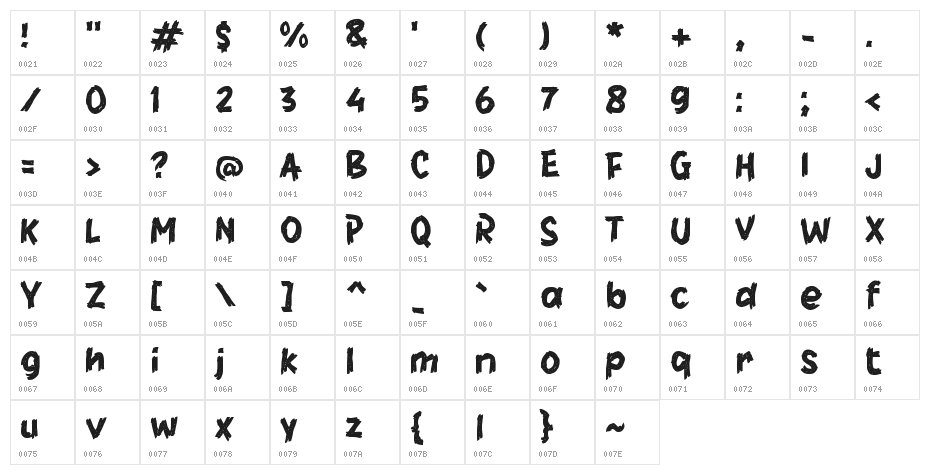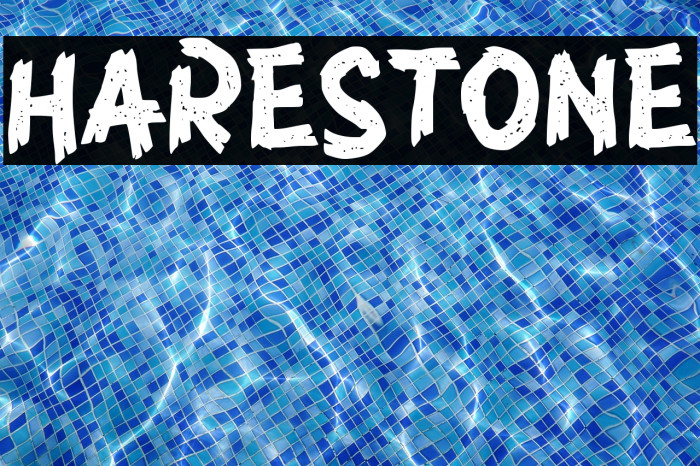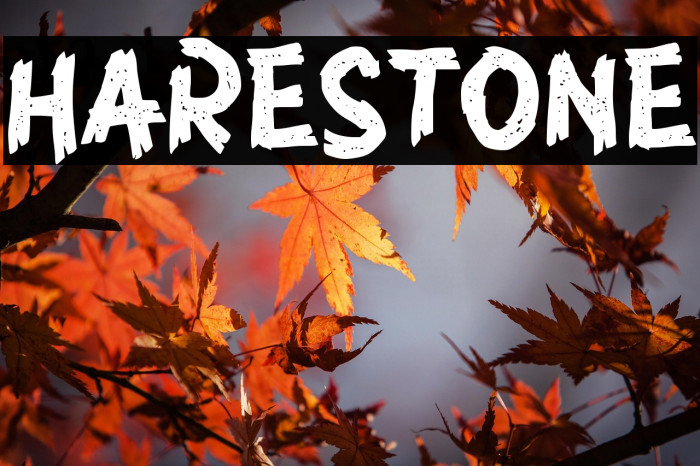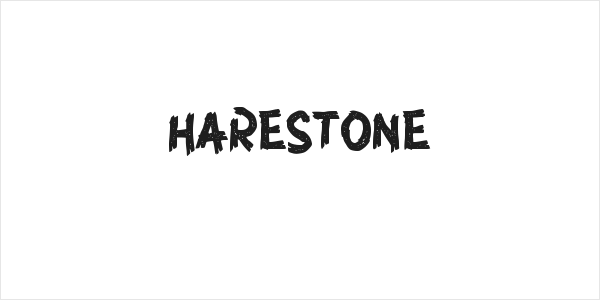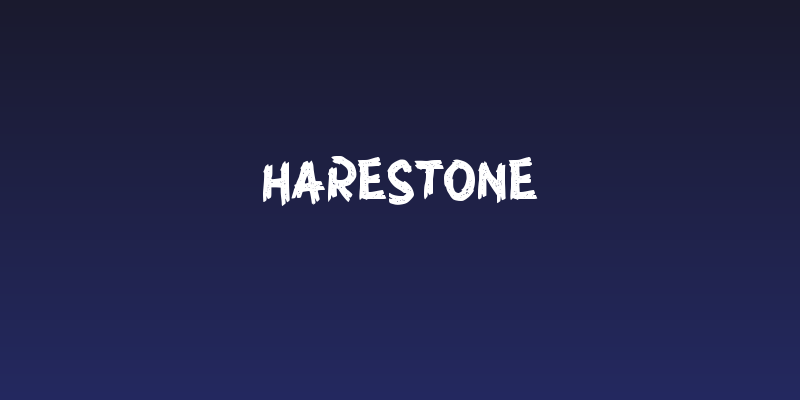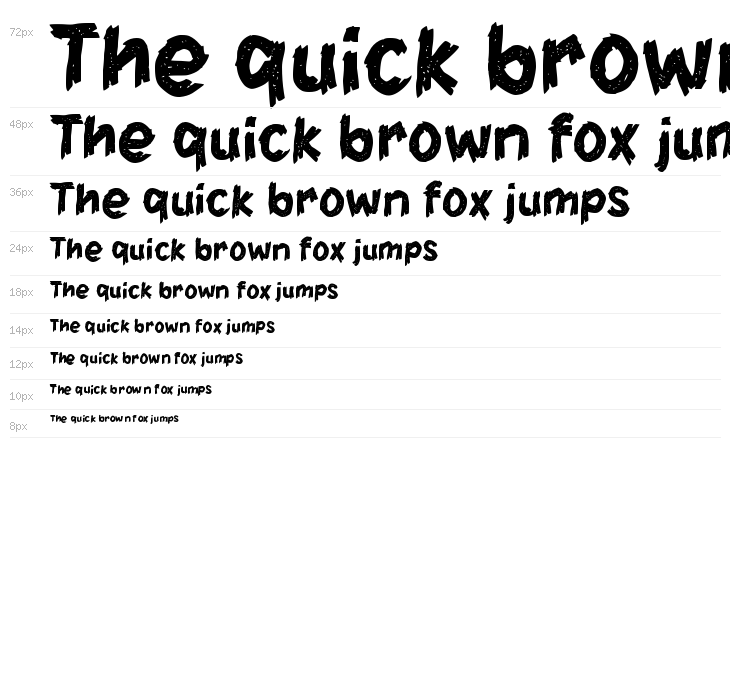
HARESTONE Font
HARESTONE Description
This font features a bold, hand-drawn style with a playful and slightly chaotic appearance. The letters are irregular and have a textured, distressed look, giving them a dynamic and energetic feel. The uppercase and lowercase letters maintain a consistent style, with thick strokes and uneven edges that suggest a casual, artistic flair. The numbers and special characters follow the same design, ensuring a cohesive look across all elements. This font is perfect for projects that require a fun and informal touch, such as posters, children's books, or creative branding.
| Proposed Projects | Ideal for posters, children's books, creative branding, and informal designs. |